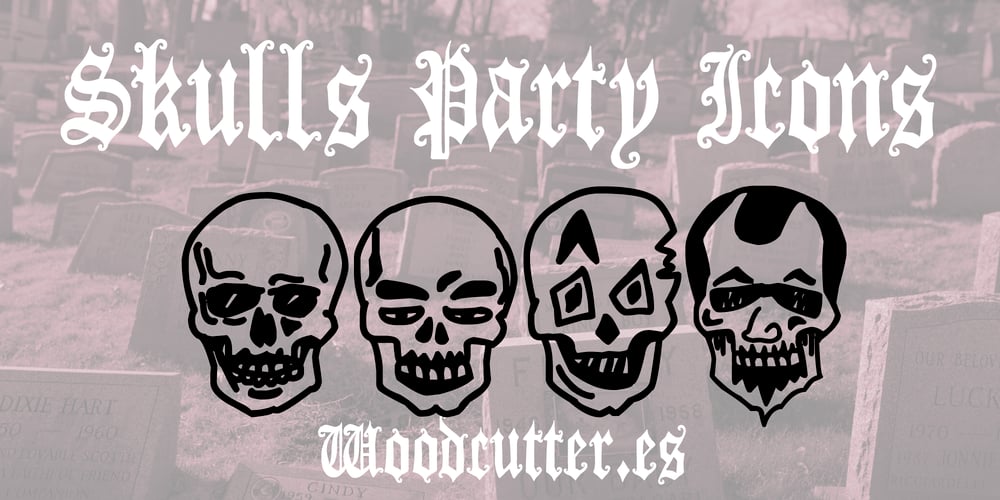
Skulls Party Icons Font Family was designed by Jordi Manero and published by Woodcutter. Skulls Party Icons contains 1 styles and family package options. “Skulls Party Icons” is a font featuring a collection of skull drawings created by Woodcutter. This typeface is wild and irreverent, perfect for adding a bold touch to your projects. Each skull has a unique design, yet all maintain a balanced and consistent outline, providing cohesion to the collection. Ideal for daring designs, themed parties, or any project needing a rebellious and fun style, “Skulls Party Icons” brings a distinctive and eye-catching vibe, capturing attention with its carefree and creative style.